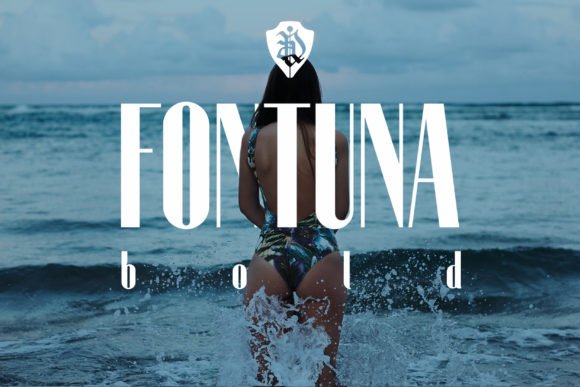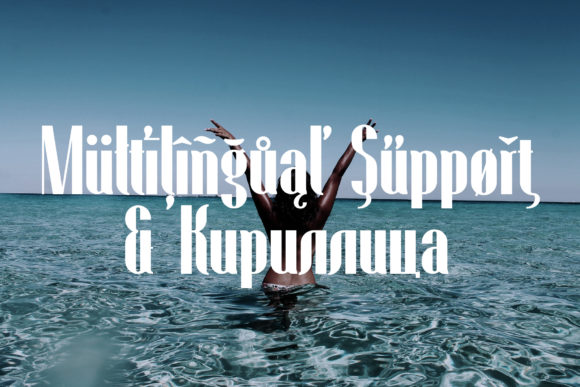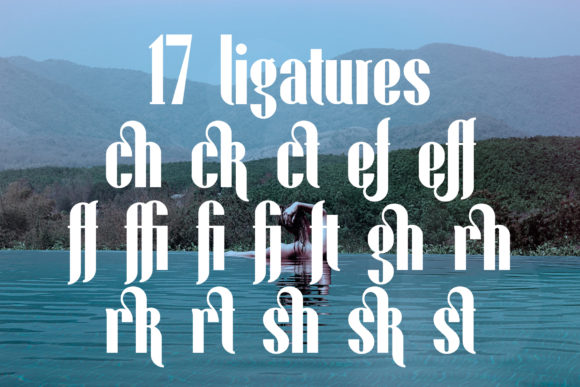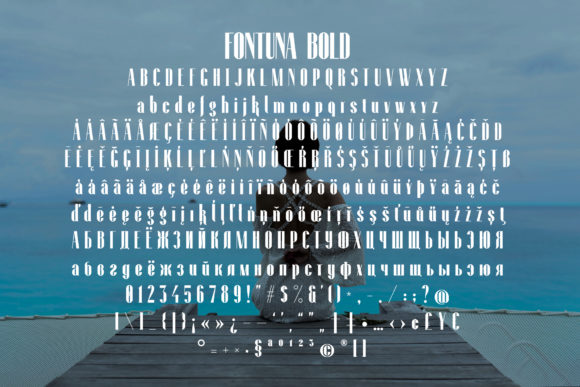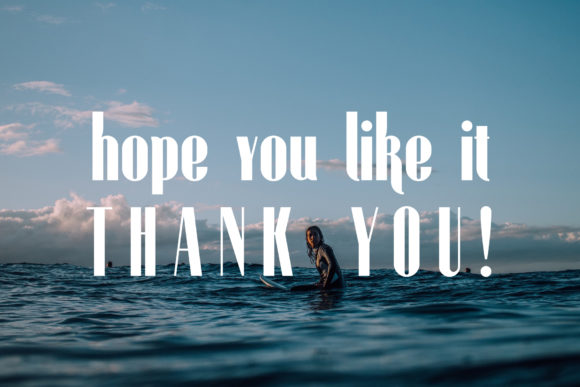
Unleashing Creativity: The Allure of Fontuna Bold Font
Have you ever found yourself stuck in a creative rut, unable to bring your vision to life? I know I have. It’s that moment when the perfect font can make all the difference. For me, it was the discovery of Fontuna Bold Font, an elegant bold sans-serif font that effortlessly blends modern and vintage aesthetics.
Fontuna Bold Font is more than just a typography choice – it’s a statement. Designed to evoke the essence of fashion typography, this font is perfect for designers looking to add a touch of sophistication to their projects. Whether you’re working on a high-end fashion brand or a vintage-inspired editorial piece, Fontuna Bold Font is sure to elevate your design game.
Fontuna Bold Font Key Features
- Font Family: Fontuna Bold
- Unique Characteristic: Fontuna Bold features a distinctive, modern design with a strong emphasis on legibility and readability
Fontuna Bold Font Review
Overall, I’m quite pleased with the Fontuna Bold Font. It’s got a modern feel to it, and the bold weight is perfect for headings and titles. ✨ The font is highly legible, even at smaller sizes, which is a big plus for digital applications.
- High legibility, even at small sizes
- Modern and sleek feel
- Perfect for headings and titles
- Works well in digital applications
However, there are a few limitations to consider. ⚠️ The font’s bold weight can sometimes feel a bit too bold, overpowering the surrounding text. Additionally, the font doesn’t have a matching italic or light weight, which might limit its versatility in certain design situations.
- Bold weight can feel overpowering
- No matching italic or light weight
Overall, I’d recommend the Fontuna Bold Font for anyone looking for a clean and modern sans-serif font. It’s perfect for titles and headings, and works well in digital applications. However, be aware of its limitations and consider using it in conjunction with other fonts to achieve the desired effect.
Tips for Getting the Most Out of Fontuna Bold Font
Use Fontuna Bold Font to add a touch of elegance and sophistication to your designs. It pairs well with modern and minimalist designs. Experiment with different font sizes and styles to create visual interest.
Use Fontuna Bold Font for:
- Product labels and packaging
- Corporate branding and marketing materials